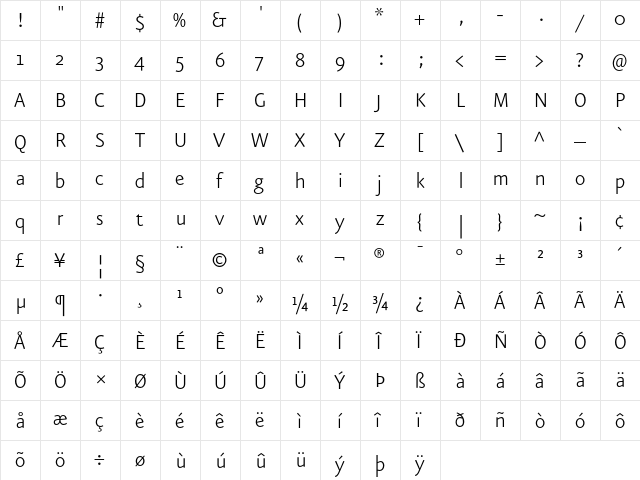
Eureka Sans Light
Design Context for Eureka Sans Typeface
Eureka Sans offers clean, dependable letterforms without strong stylistic allegiance, making it a practical choice for designers who need flexibility. The delicate stroke weight brings airiness and refinement to layouts.
Pro Tip: Pair Eureka Sans with a font of contrasting weight or personality to build a more expressive typographic hierarchy.